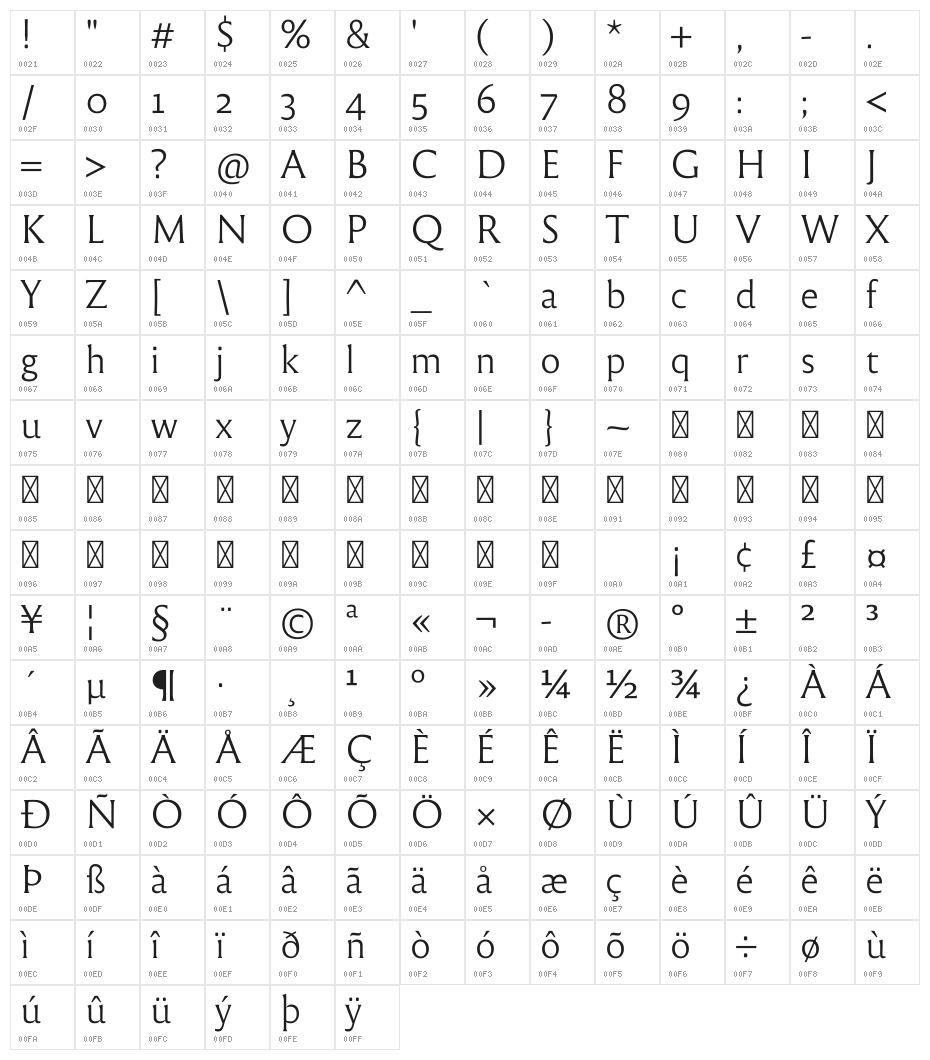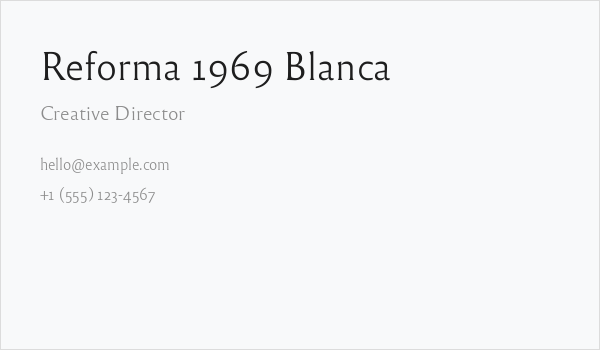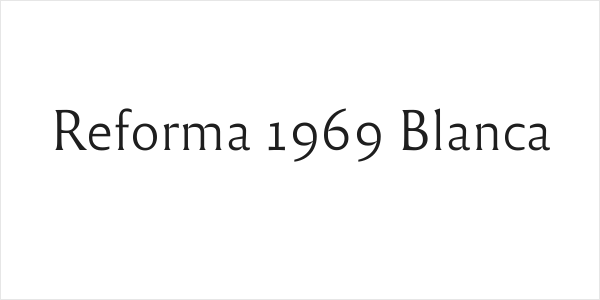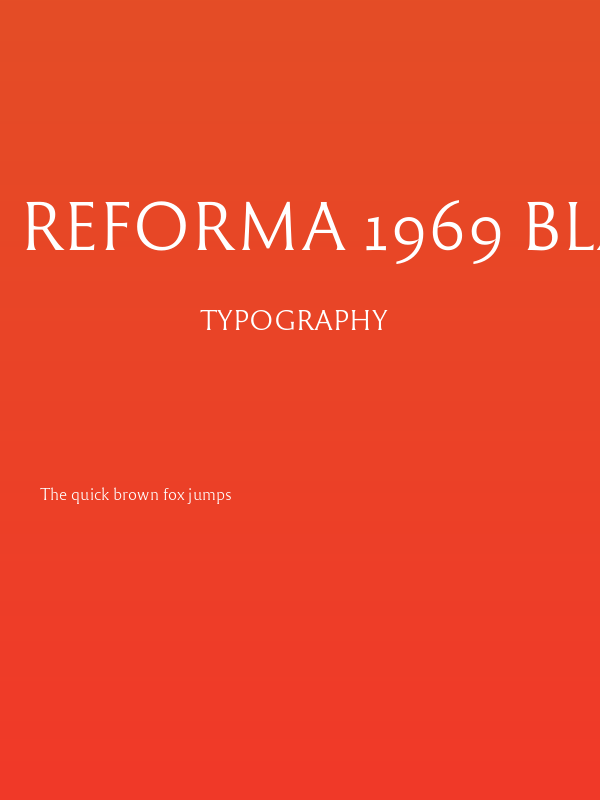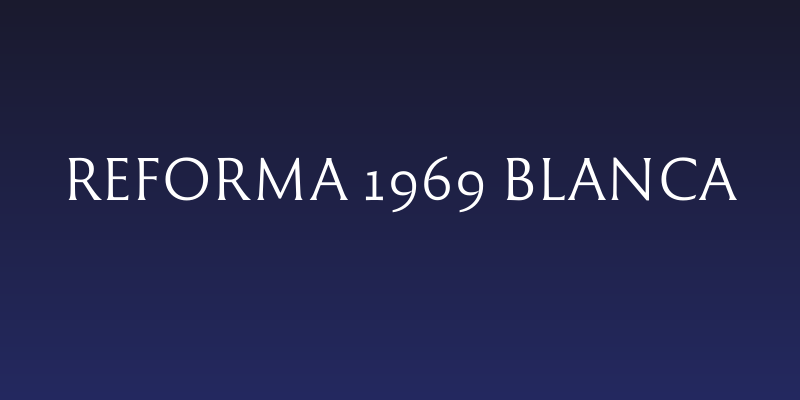
Reforma 1969 Blanca Font
Reforma 1969 Blanca Description
This font features a classic serif style with a modern twist, characterized by its elegant and refined letterforms. The uppercase letters are bold and commanding, while the lowercase letters maintain a graceful and fluid appearance. The numerals are clear and distinct, making them easily readable. Special characters are well-integrated, adding to the font's versatility. The overall design balances tradition with contemporary aesthetics, making it suitable for a wide range of applications.